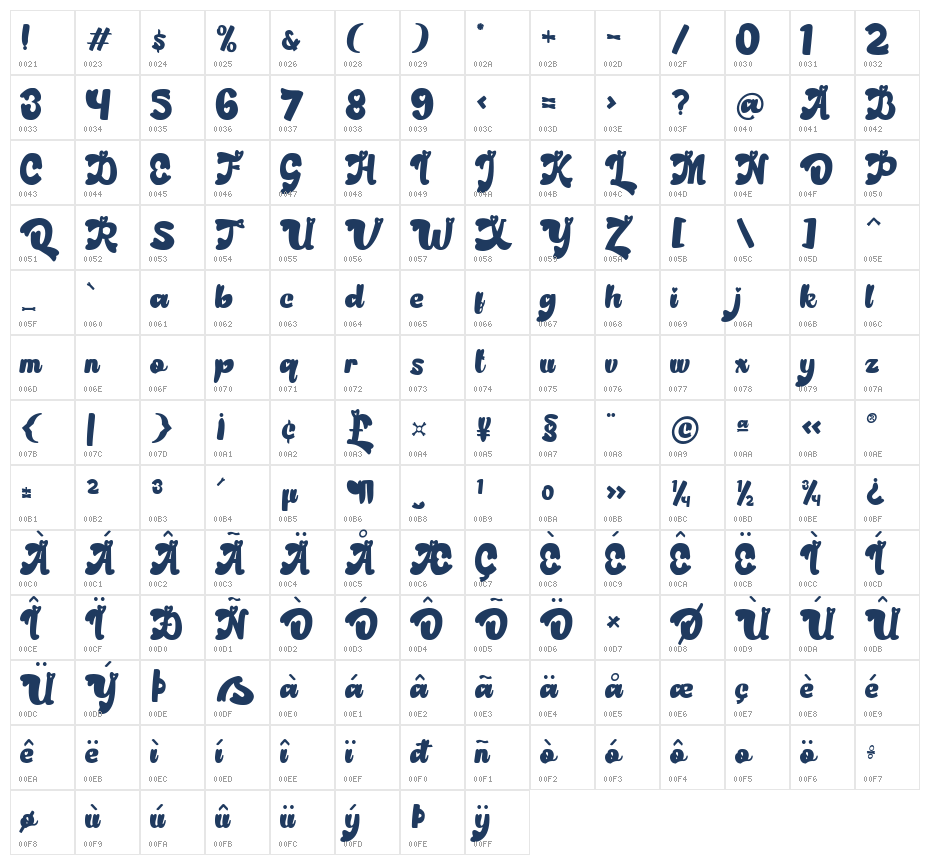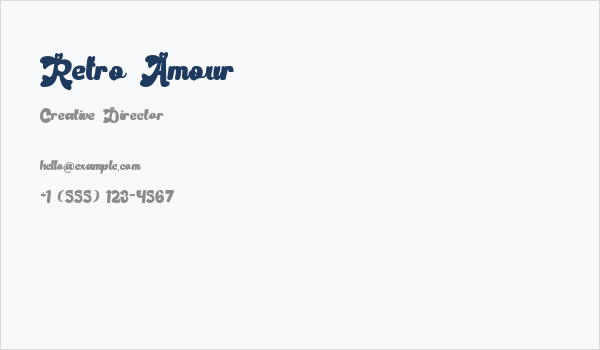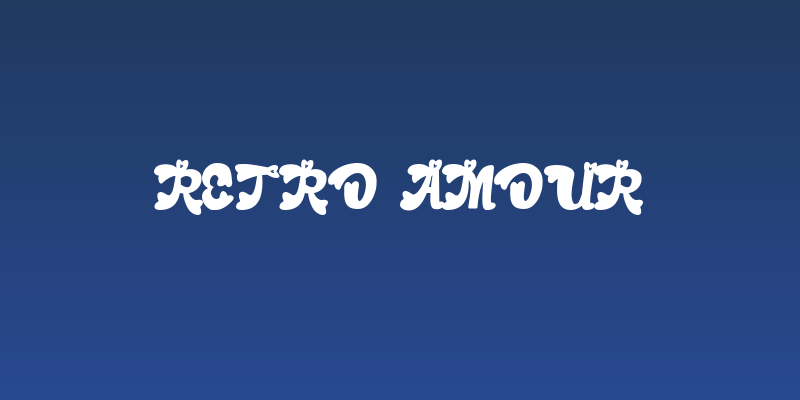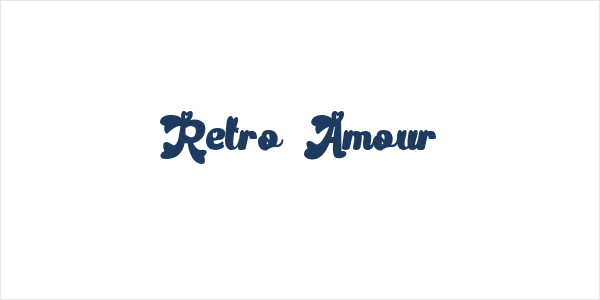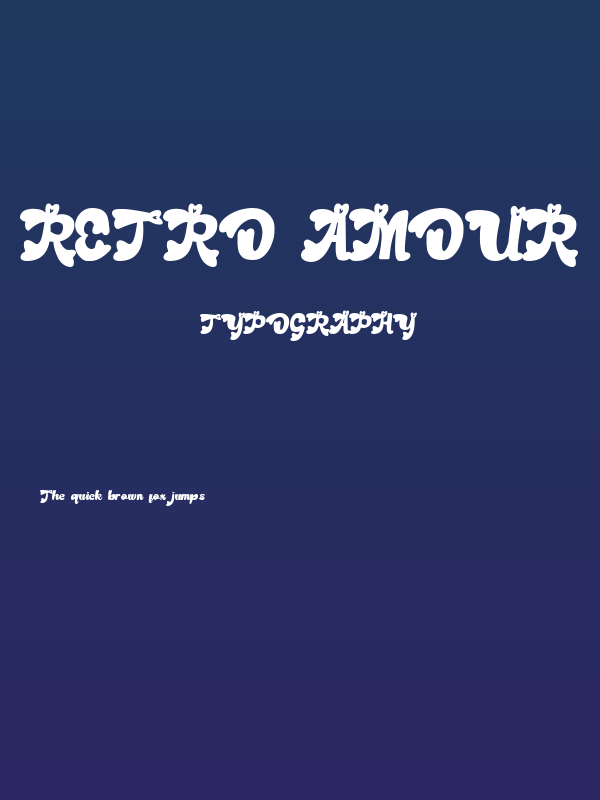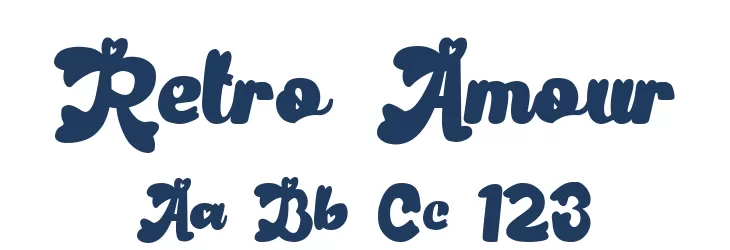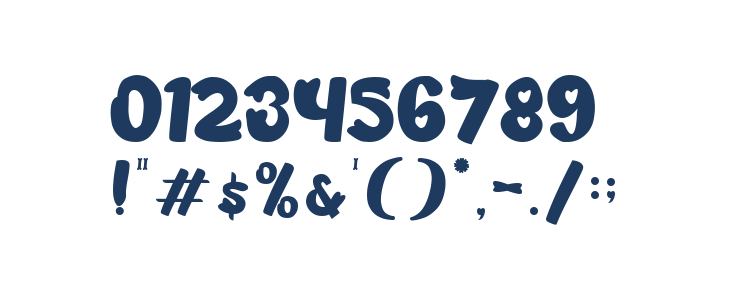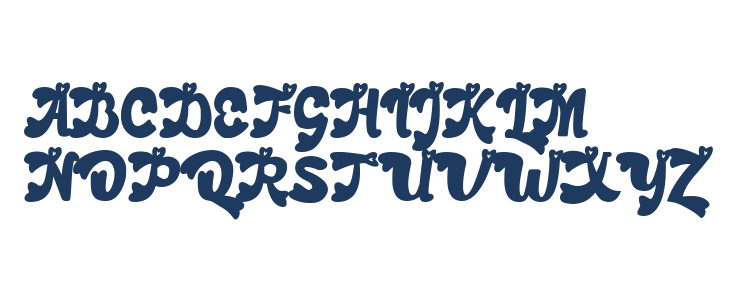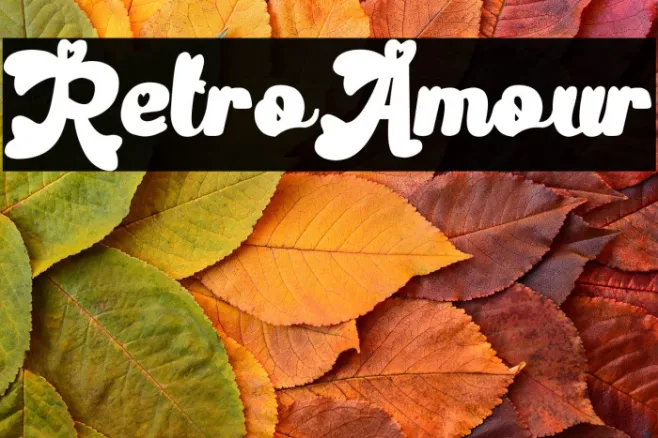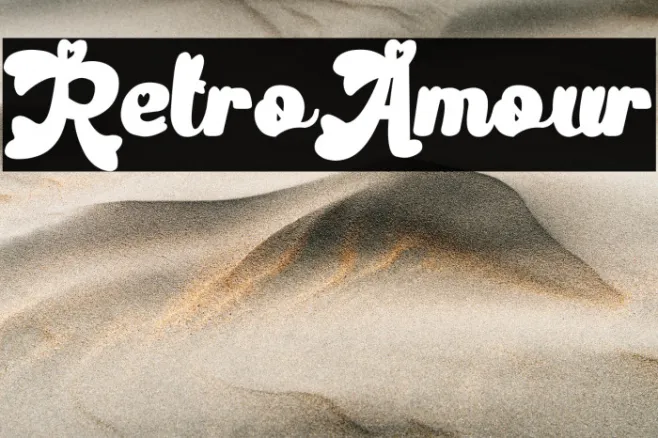
Retro Amour Font
Retro Amour Description
A bold, playful, and rounded script font with a handwritten style, featuring small heart-shaped accents on some characters.
| Overall Style | Playful, Casual, Handwritten |
| Use Case | Headlines, Logos, Greeting cards, Social media graphics |